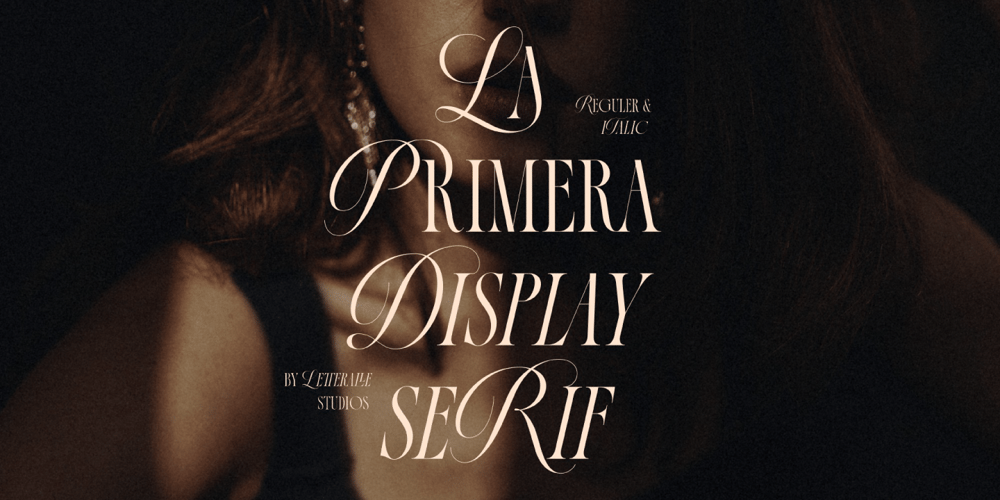
La Primera Font Family was designed by Annas Alam Yahya and published by Letteralle. La Primera contains 2 styles and family package options. Introducing, La Primera! Luxurious and elegant font with a mix of classic calligraphy and modern serif. La Primera carries 99 ligatures that make this font even more unique.La Primera is a versatile font, perfect for editorial projects, Logo design, Wedding, Clothing Branding, product packaging, magazine headers, or simply as a stylish text overlay to any background image.